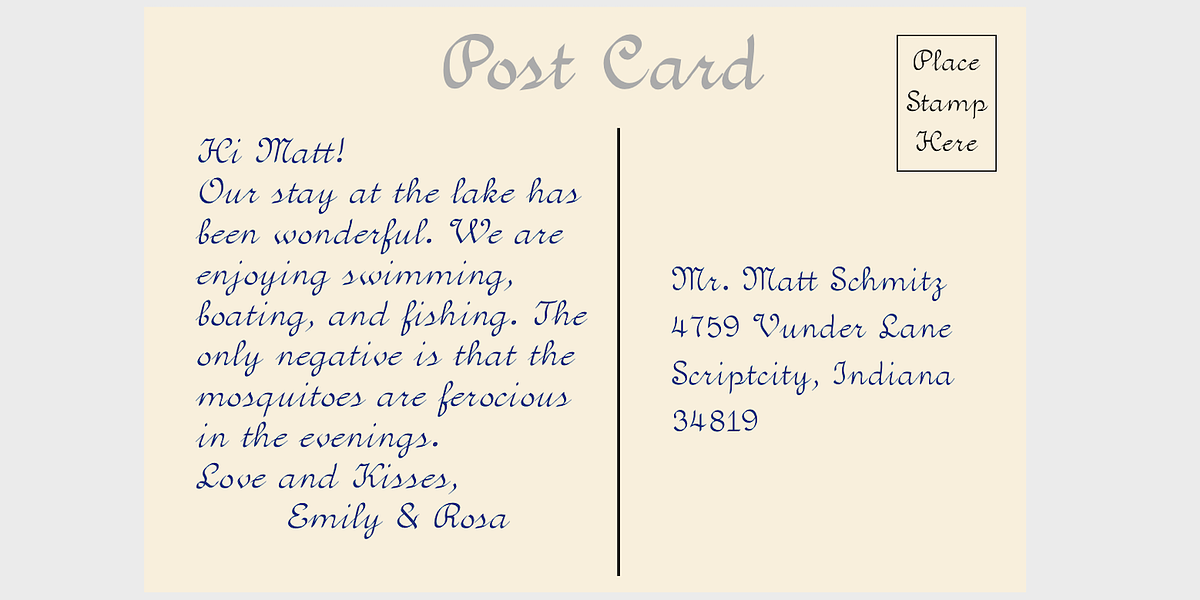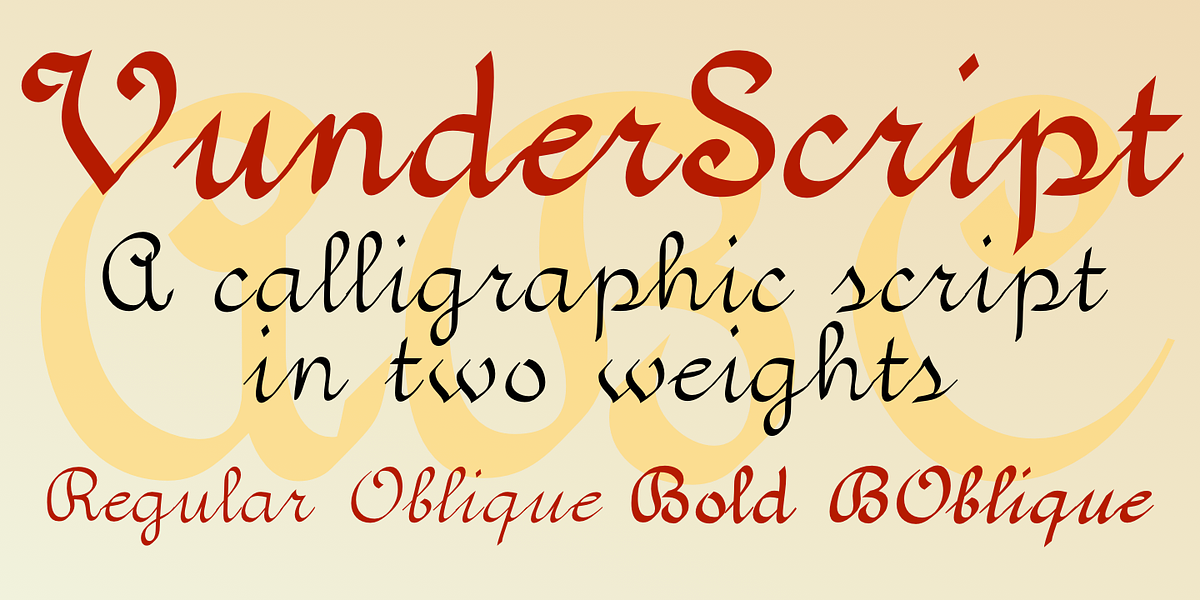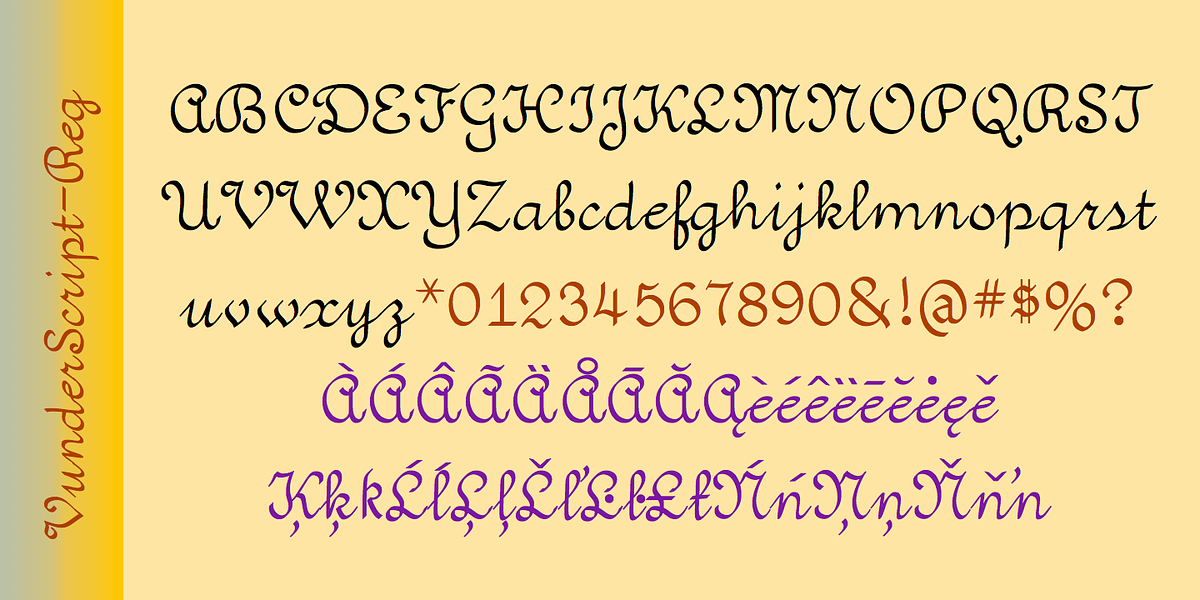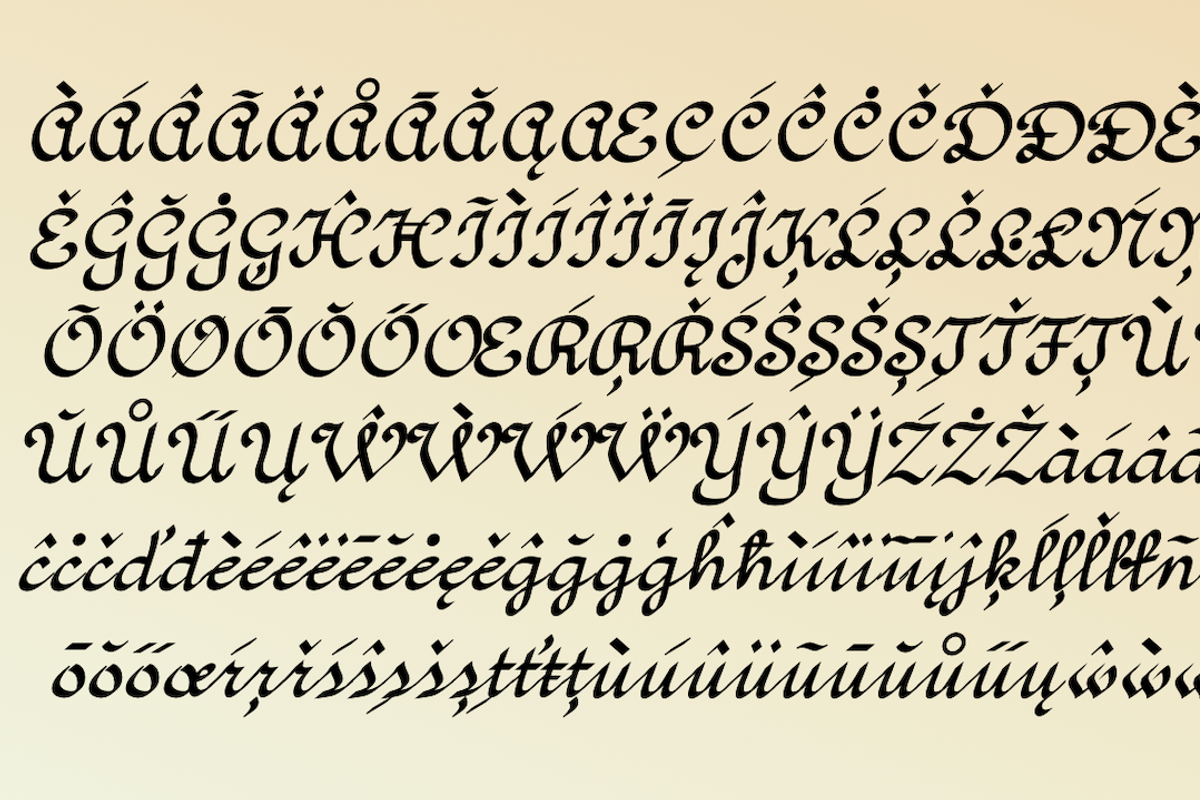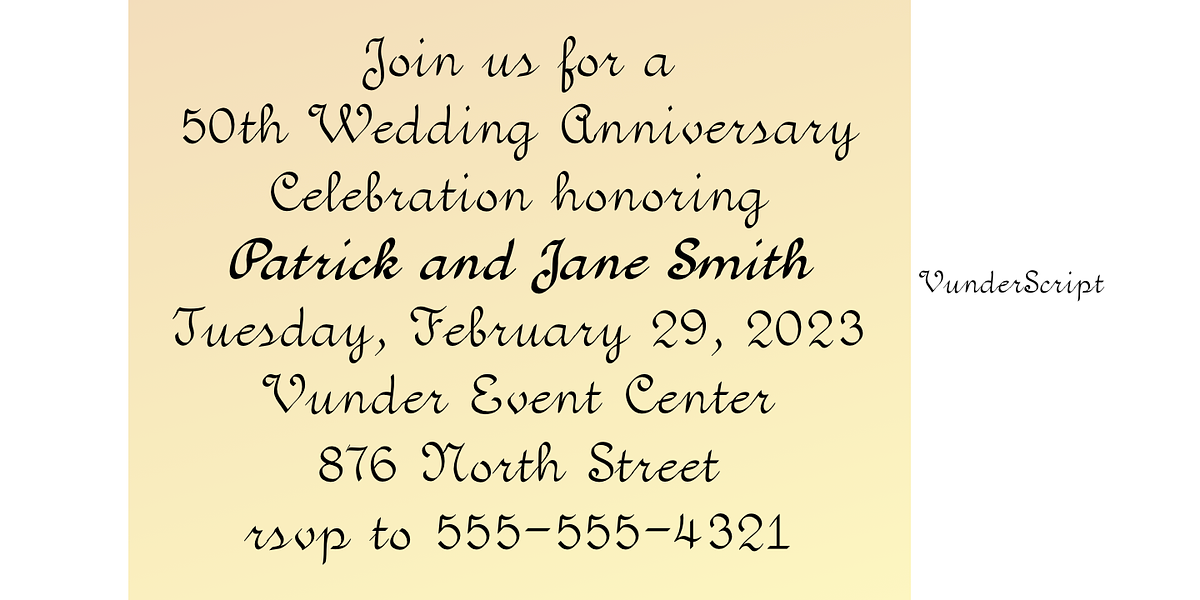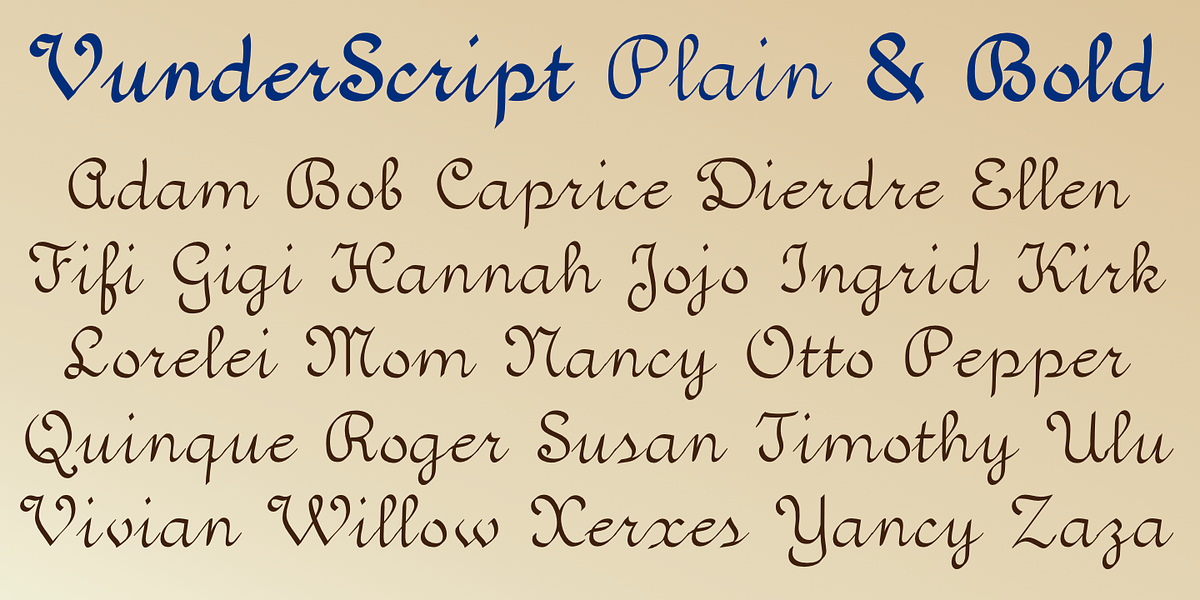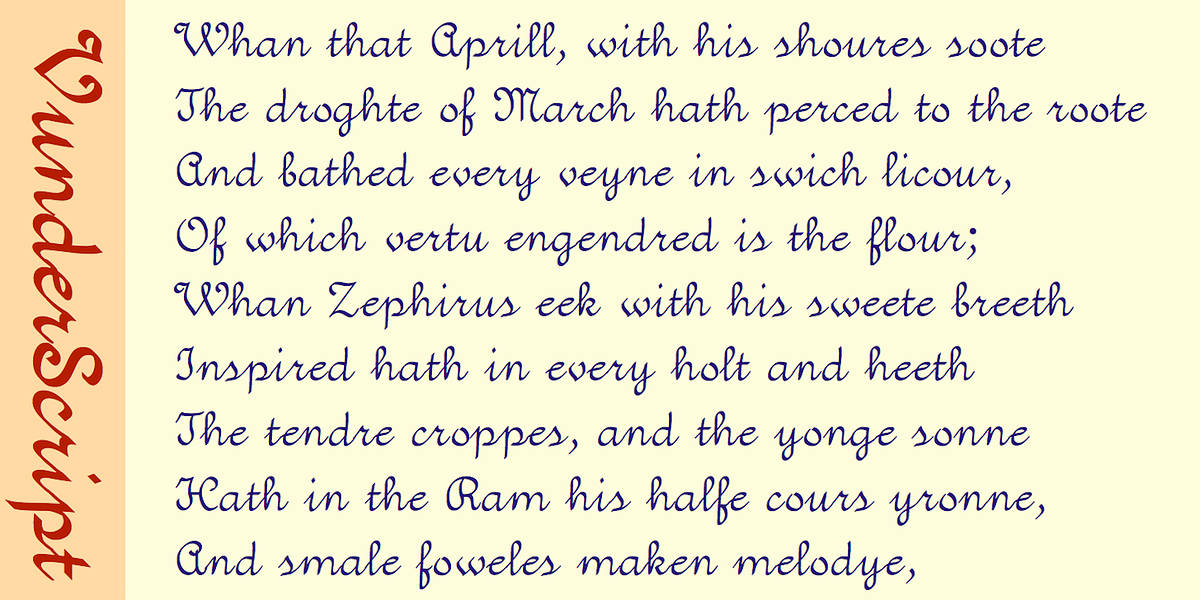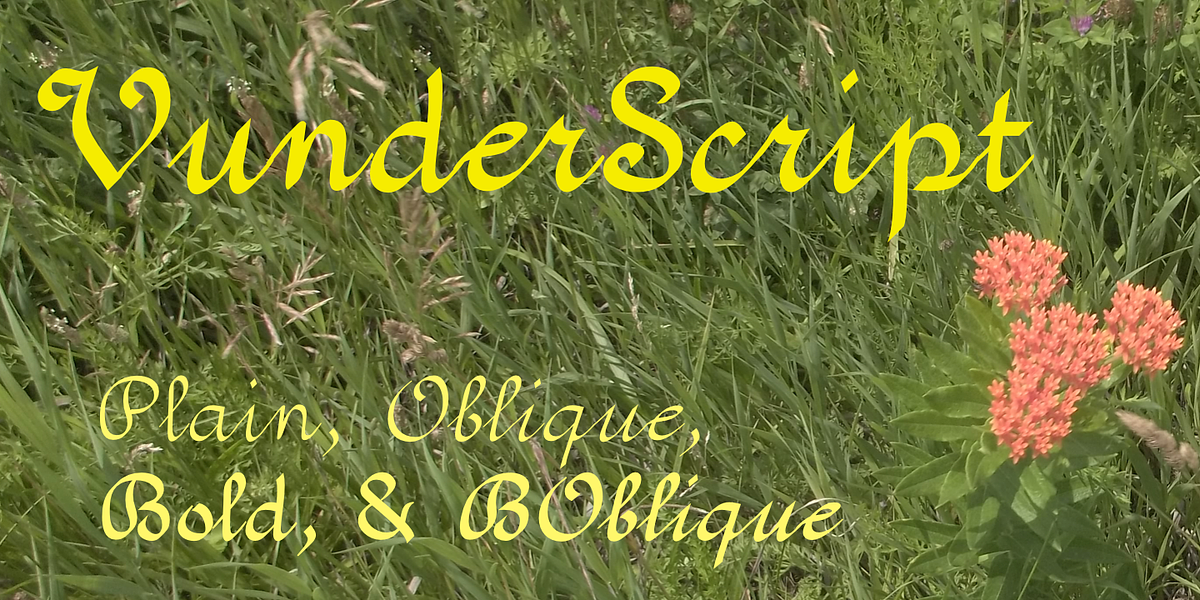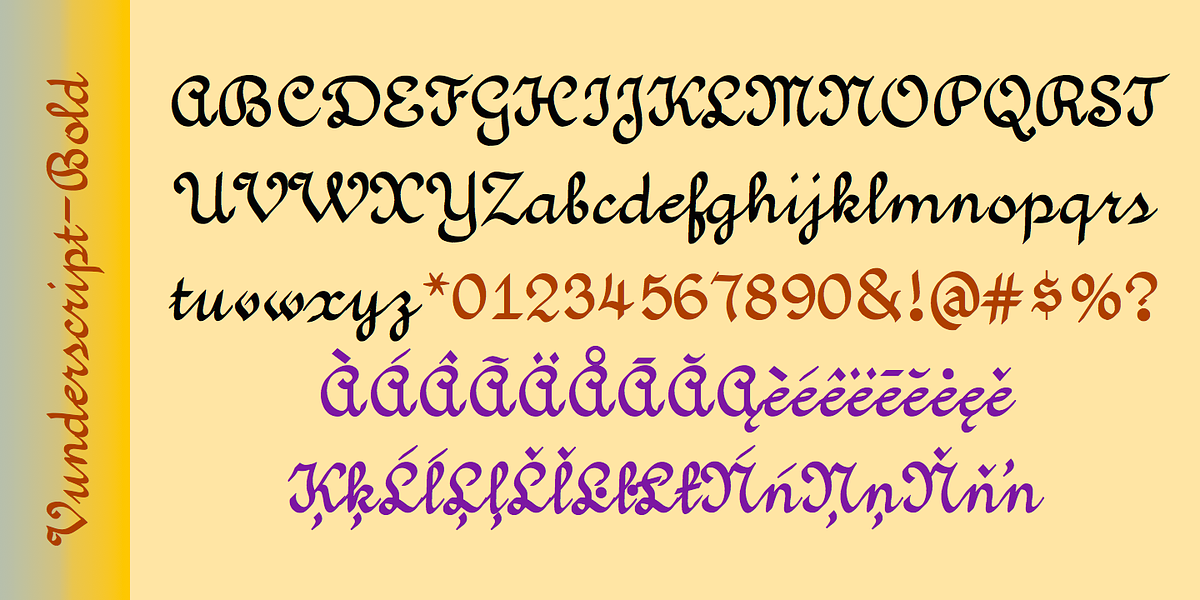
VunderScript
Vunderscript is a calligraphic script font that blends elegant cursive strokes with distinct blackletter touches in its uppercase letters. This unique combination gives it a vintage feel while remaining approachable and casual. It's available in two weights: plain and bold, each offering an oblique style for added versatility.